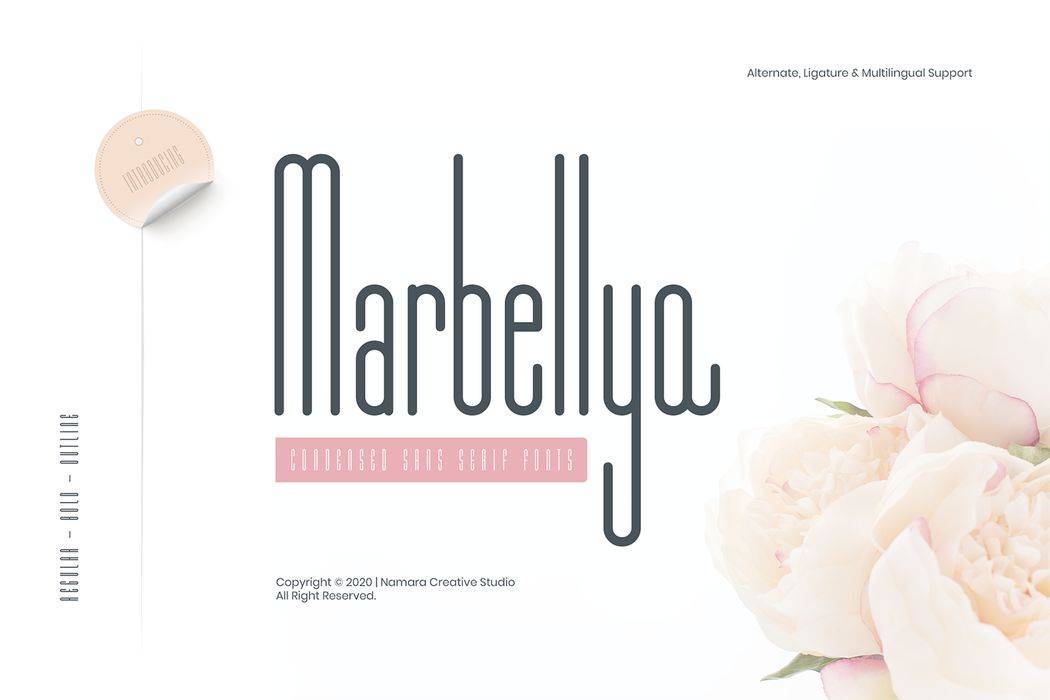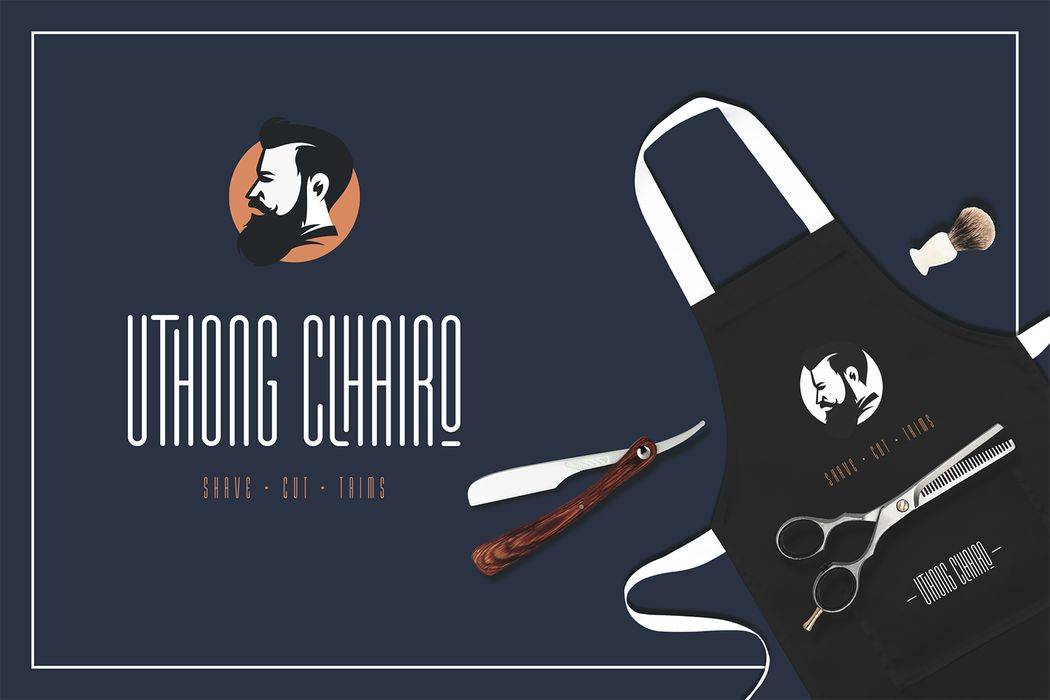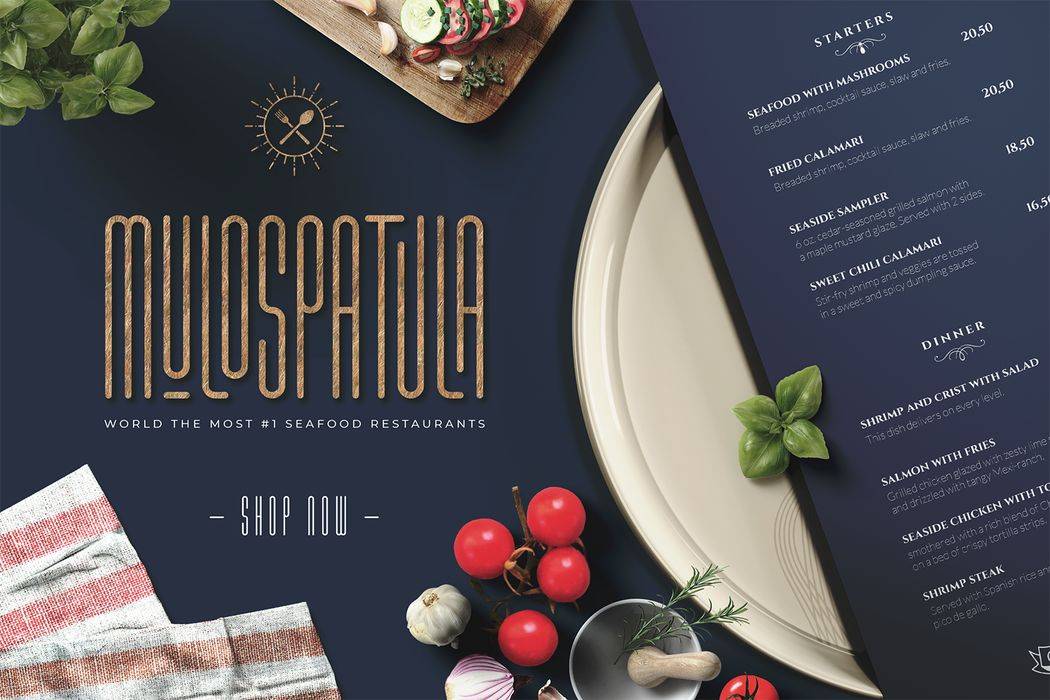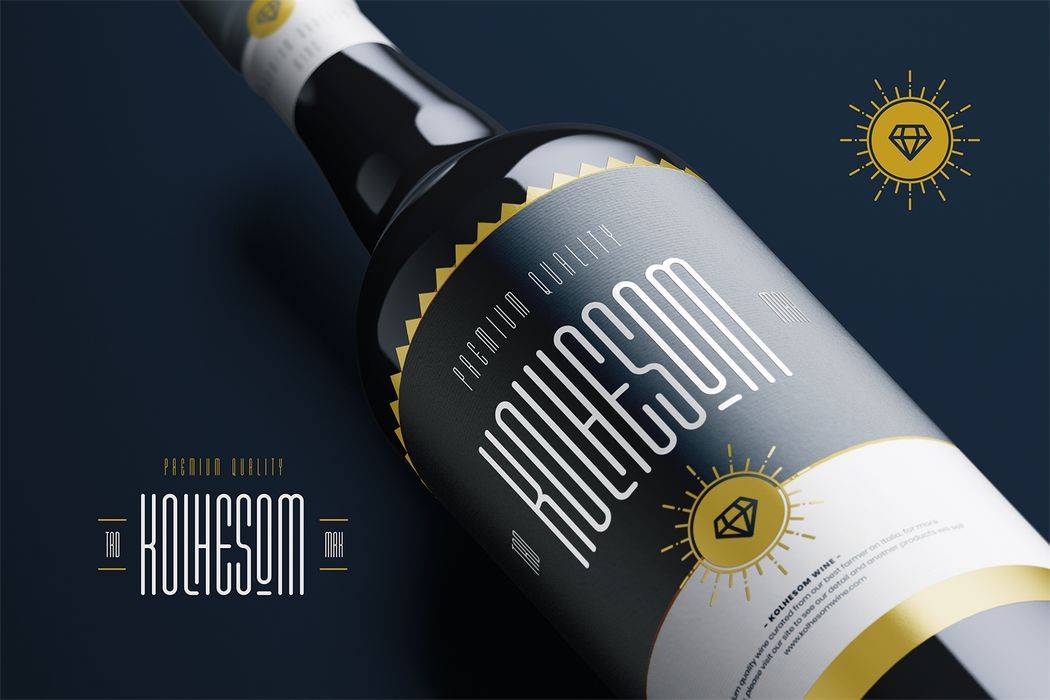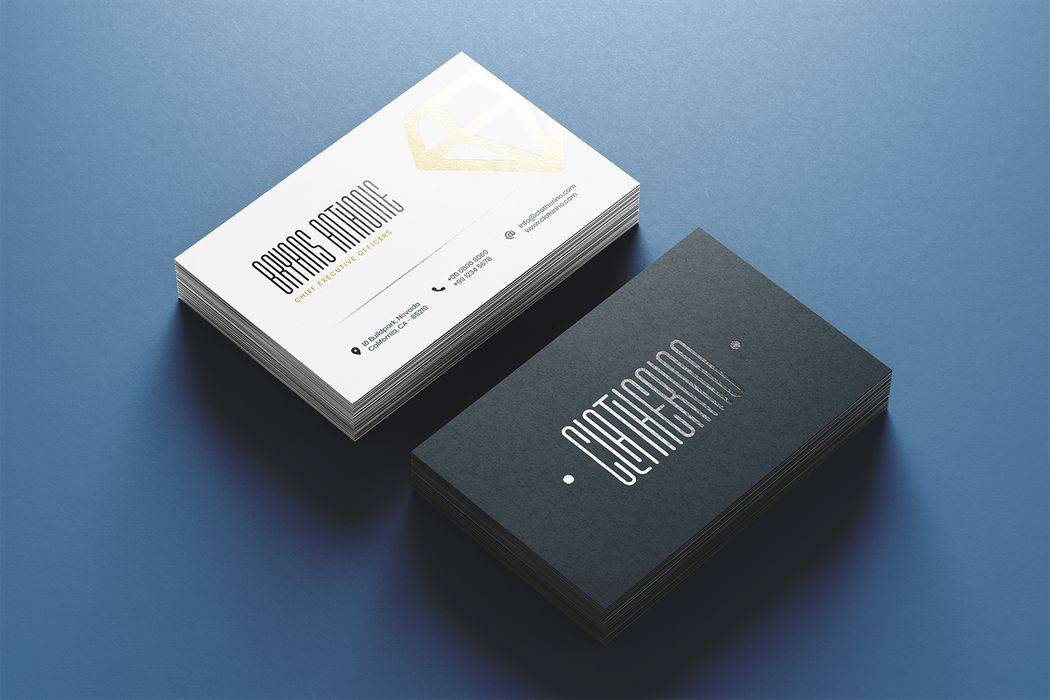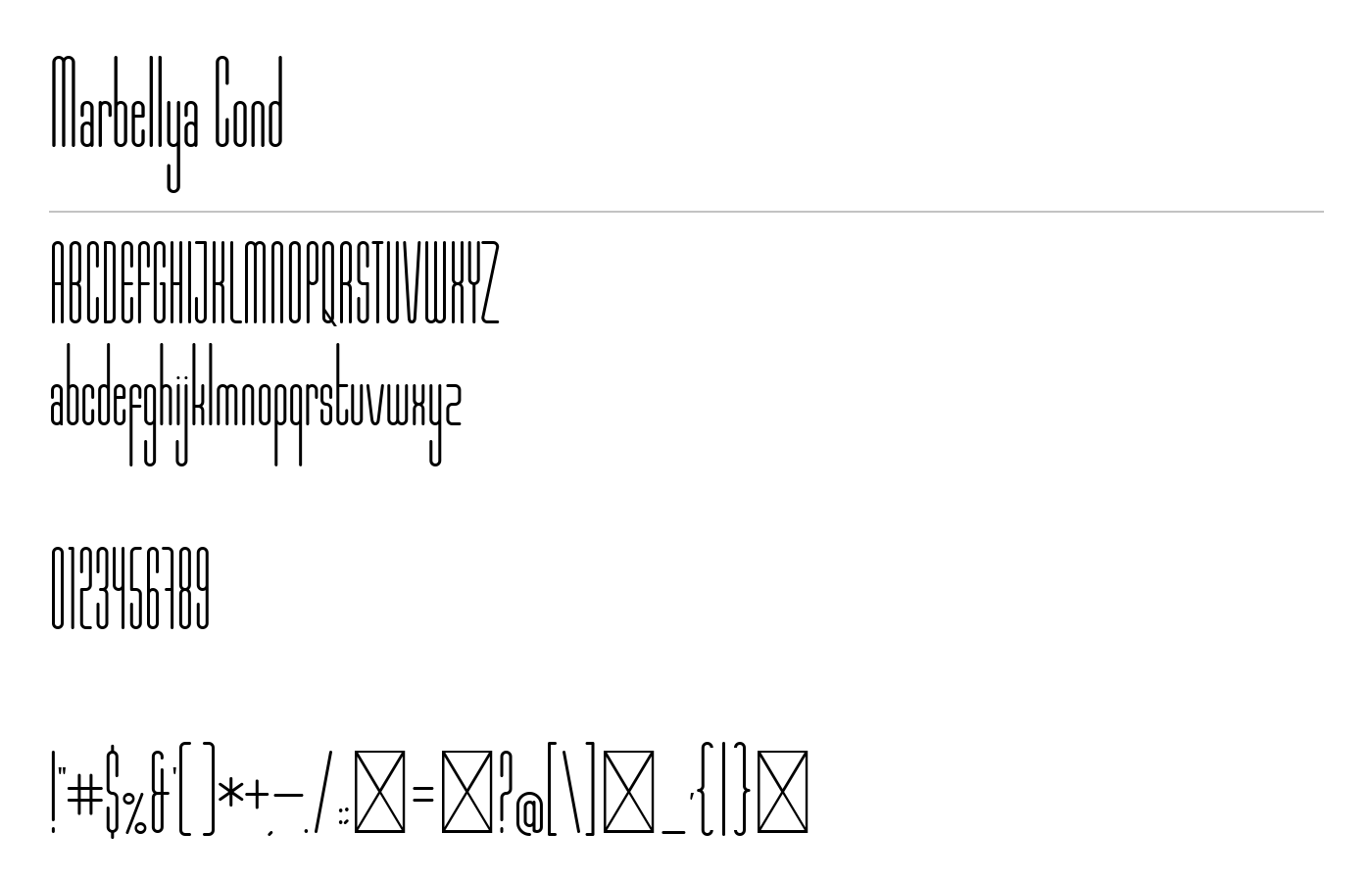
Marbellya Cond is a tall, ultra-condensed sans serif font with a light weight and minimal stroke contrast, giving it a sleek, modern, and elegant appearance. Its narrow letterforms with subtle rounded terminals evoke a stylish, sophisticated vibe ideal for fashion branding, headlines, and editorial use where space is limited but impact is needed. This font works beautifully for any design seeking a refined, contemporary look with a high degree of legibility and distinctive personality.
Marbellya Font
About Marbellya Font